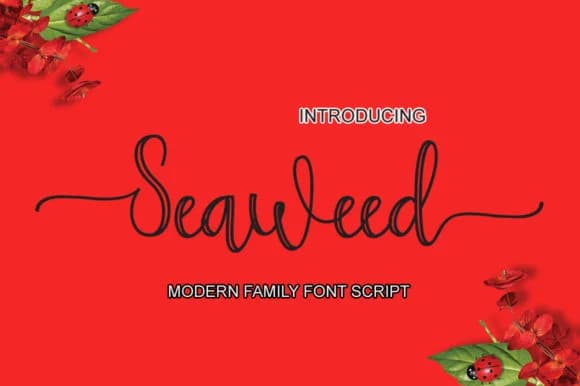
1 / 7About Seaweed Font
Seaweed has a gentle, organic energy that feels both contemporary and endlessly approachable. Microcreative's modern handwritten script strikes an unusual balance: it's simple without being boring, loose without losing legibility, and inherently personal while staying professional enough for serious work.
The real strength here is versatility. This font excels on wedding invitation suites where you want elegance minus the formality, Etsy product labels for handmade skincare or artisan goods looking for authentic character, personalized greeting card designs that feel genuinely sent by hand, and small business logos that thrive on visible warmth. DIY craft signs with real personality, event stationery that doesn't try too hard, and boutique brand packaging all sit comfortably within its range. The letterforms maintain their distinctive character across different sizes while staying perfectly readable, which is harder to pull off than it sounds.
Its handwritten nature reads as genuinely sketchy and authentic without becoming precious or distracting. When pairing with other fonts, combine Seaweed with a clean, modern sans-serif for body text to create dynamic contrast between headline and paragraph. This combination lets each typeface shine at its own job. The result feels intentional rather than random. Download it from Creative Fabrica and start layering it into your designs.
Seaweed Font is a script font that shines as a display or heading face. Pair it with a clean sans-serif or serif font for body text β the contrast creates a clear hierarchy while the two styles stay balanced and easy to read.